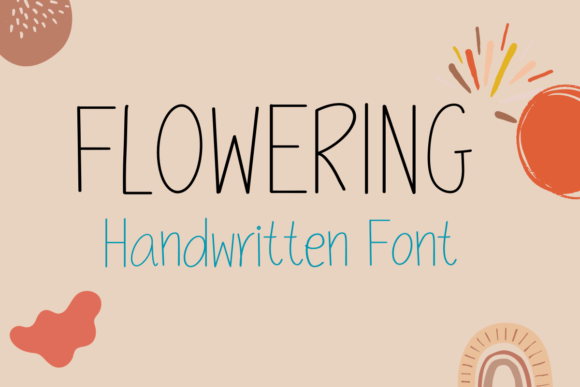
Introduction to Frowering Font
Flowering font is a sweet and friendly handwritten display font.
Cute and fun, this font is ideal for crafts,digital design,presentation or writing wedding invitation, cards,or any other design that might need a fun touch It is ideal for use in school for both teachers and students.
Key Features of Frowering Font
Why Choose Frowering Font?
Frowering Font offers exceptional quality and versatility, making it a valuable addition to your design toolkit. Whether you’re creating for personal projects or commercial use, Frowering Font delivers professional results.